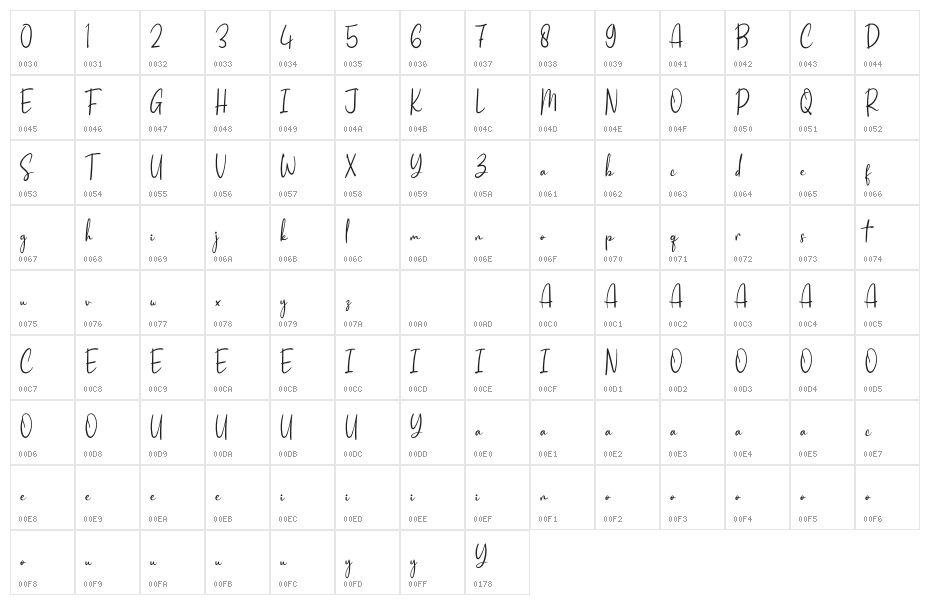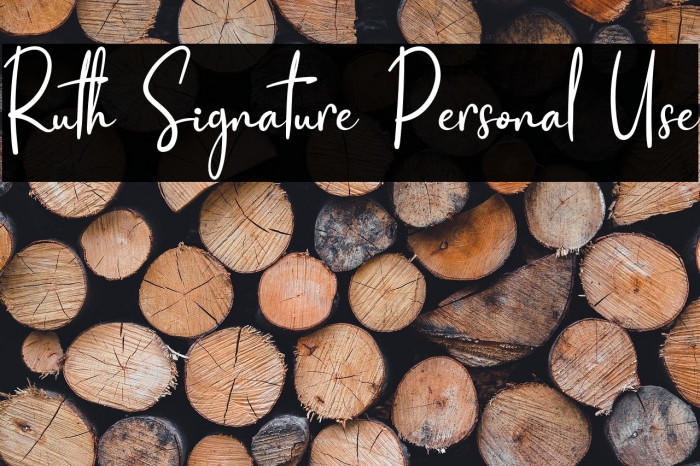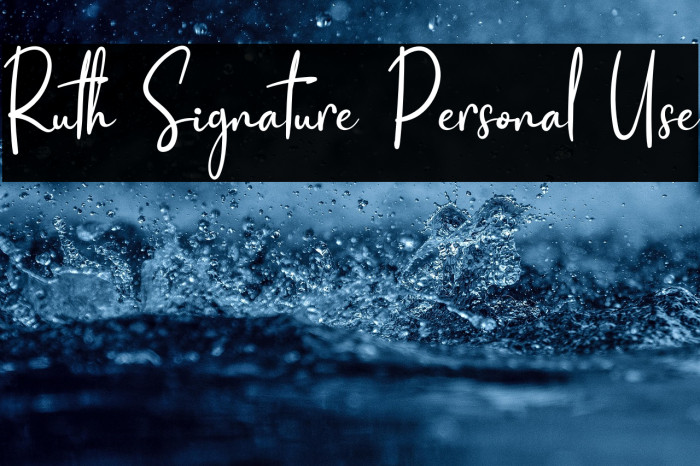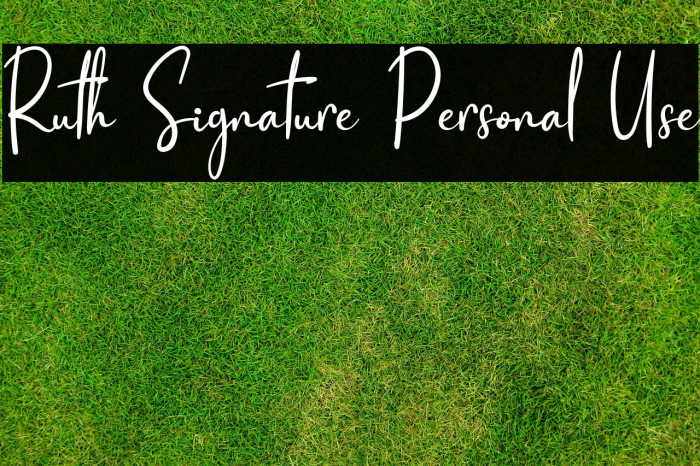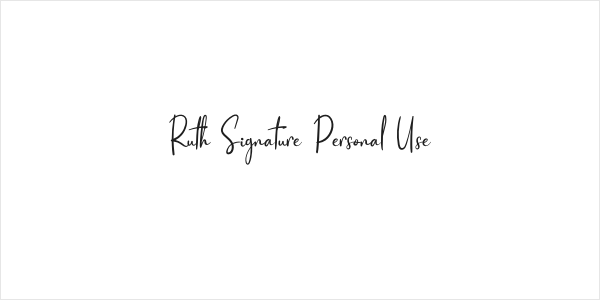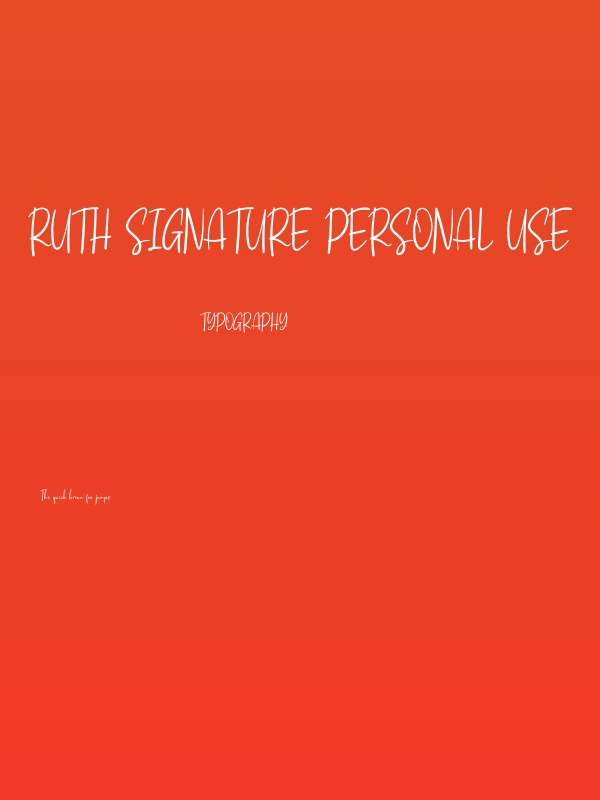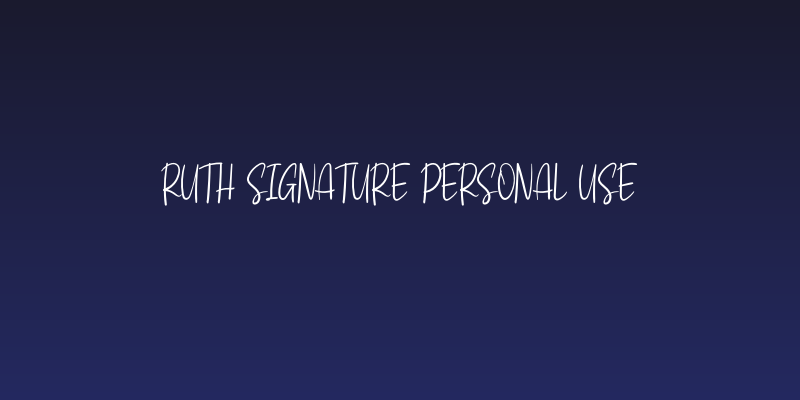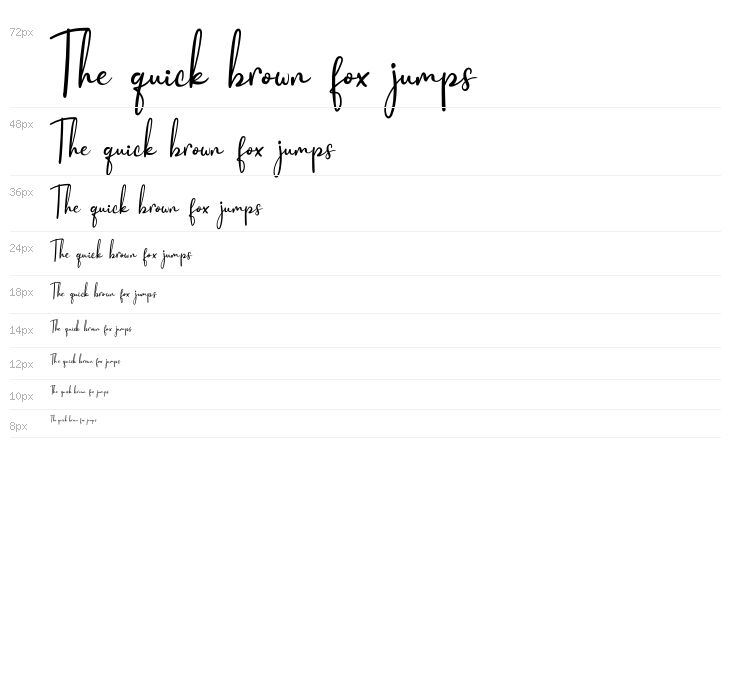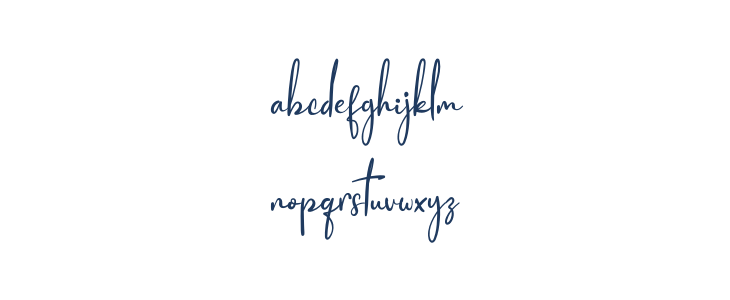
Ruth Signature Personal Use Font
Ruth Signature Personal Use Description
This font features a handwritten, cursive style with a personal touch, characterized by its fluid and elegant strokes. The uppercase letters are tall and slightly narrow, with a consistent slant that adds to the script-like appearance. The lowercase letters are more compact, maintaining the cursive flow with smooth connections between characters. The numerals are rounded and maintain the same handwritten aesthetic, providing a cohesive look across all characters. The overall design is casual yet sophisticated, making it suitable for projects that require a personal or artistic flair.
| Overall Style | Casual, Artistic |
| Use Case | Logos, Invitations, Personal branding |
| Proposed Projects | Ideal for personal branding, invitations, greeting cards, and artistic projects. |